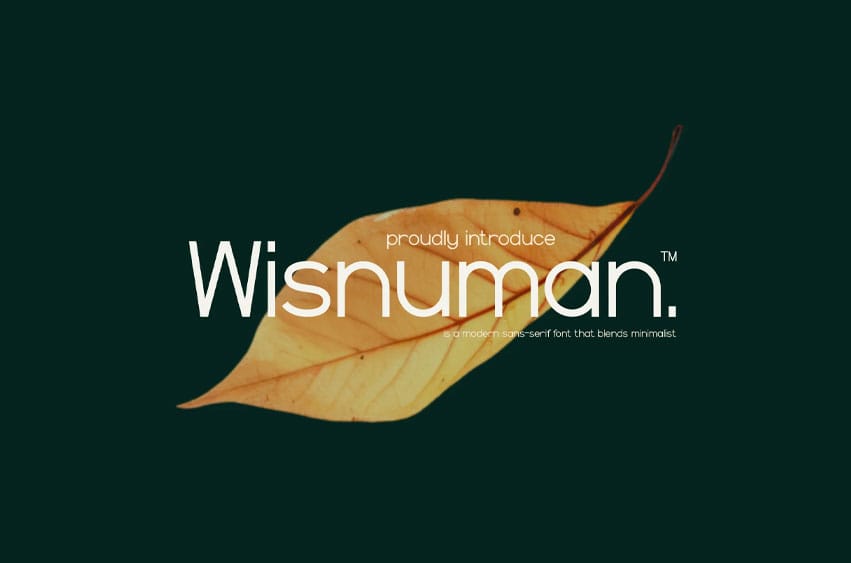
Wisnuman Font Ready to use for your design like labeling, movie sceen, poster, movie title, gigs, album covers, logos, and much more.
It will certainly amaze your readers.